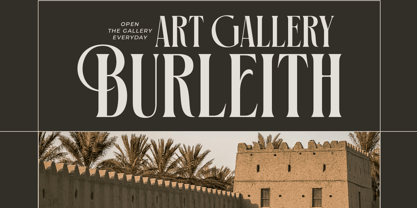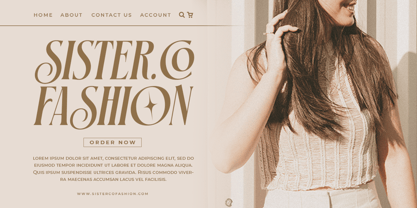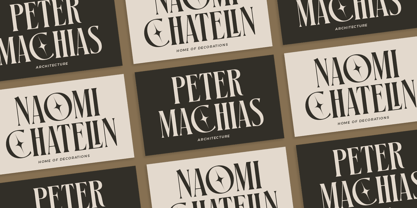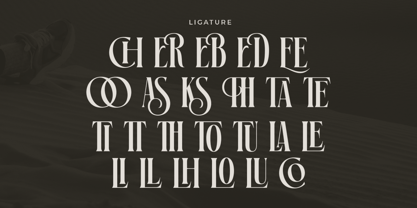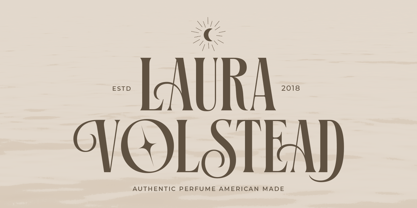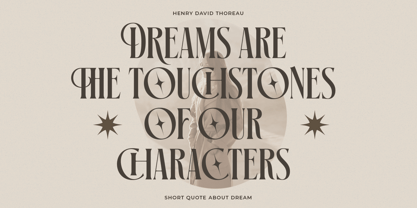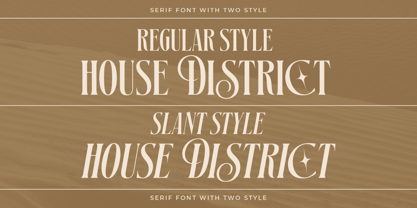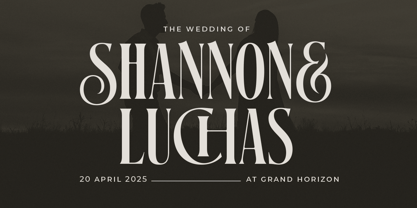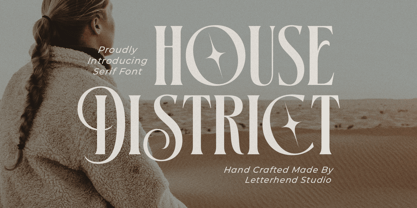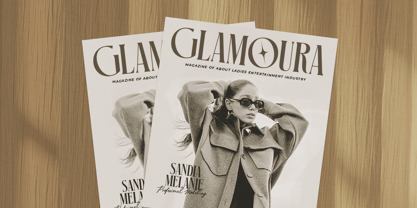
House District
by Letterhend
Introducing House District, a crafted serif font that blends vintage elegance with contemporary sophistication. Its refined letterforms feature smooth curves, stylish swashes, and striking star-like embellishments, evoking a sense of luxury and high-end craftsmanship.